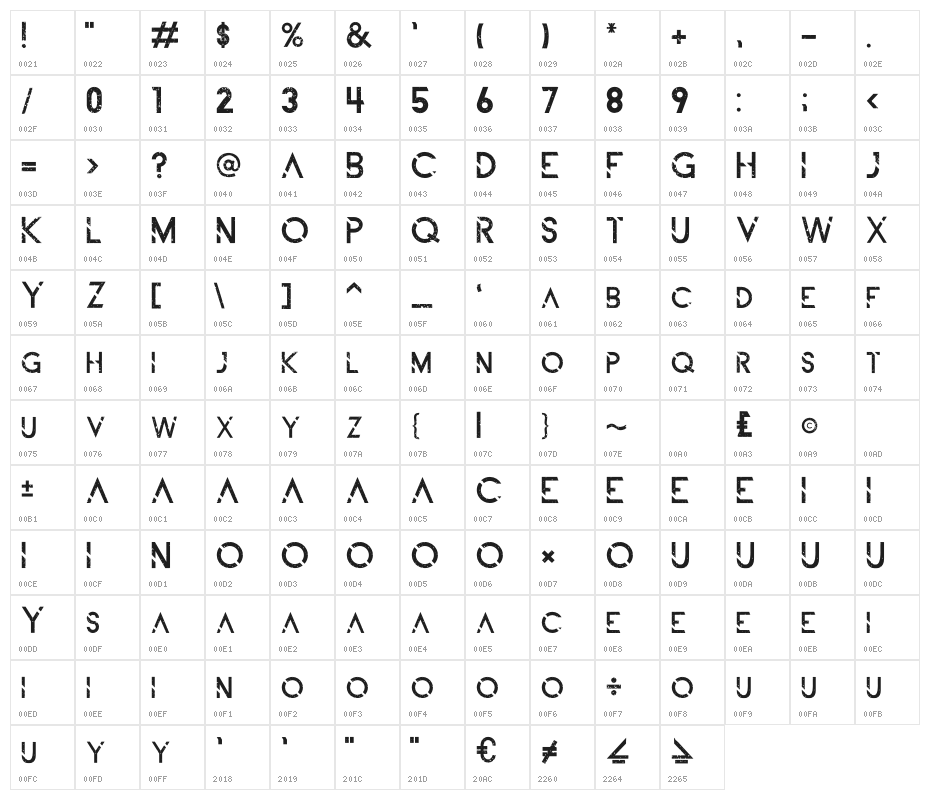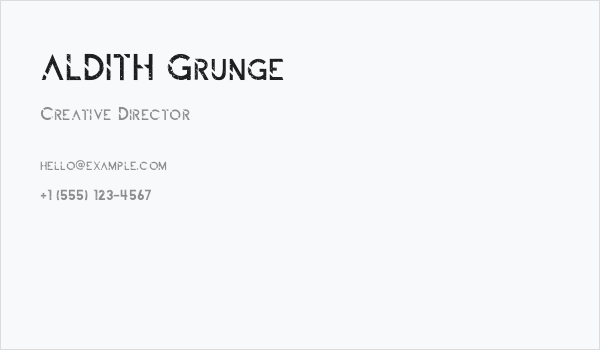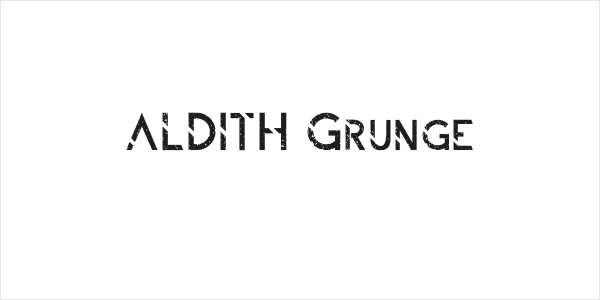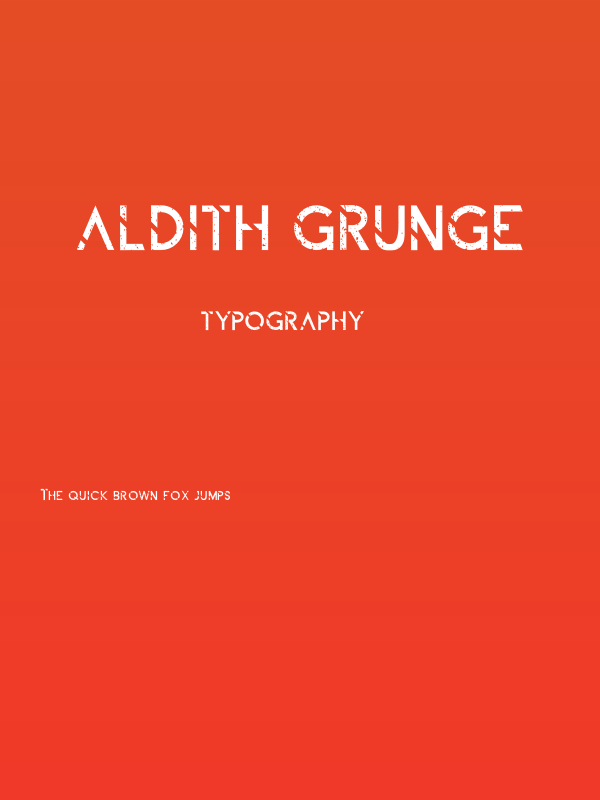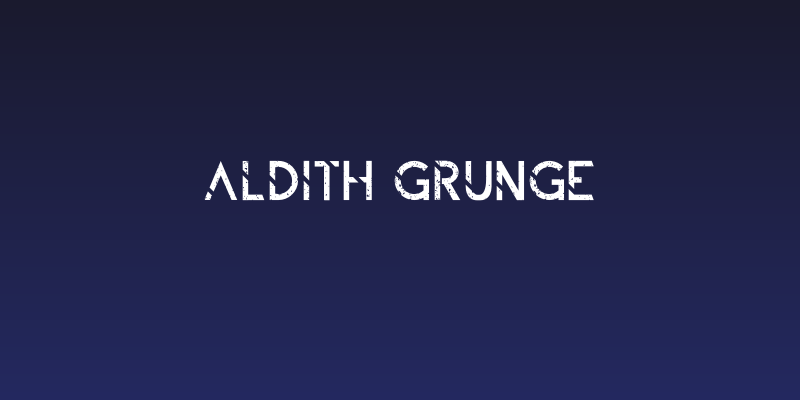
ALDITH Grunge Font
ALDITH Grunge Description
This font features a bold, distressed style with a grunge aesthetic. Each character appears as if it has been weathered or eroded, giving it a rugged and edgy appearance. The uppercase and lowercase letters maintain a consistent design, with sharp angles and a geometric structure. The numerals and special characters follow the same distressed pattern, ensuring uniformity across the typeface. This font's unique texture and bold presence make it stand out, ideal for projects that require a strong visual impact.
| Overall Style | Grunge, Edgy |
| Proposed Projects | Ideal for music album covers, posters, urban-themed designs, and branding that requires a gritty, edgy look. |